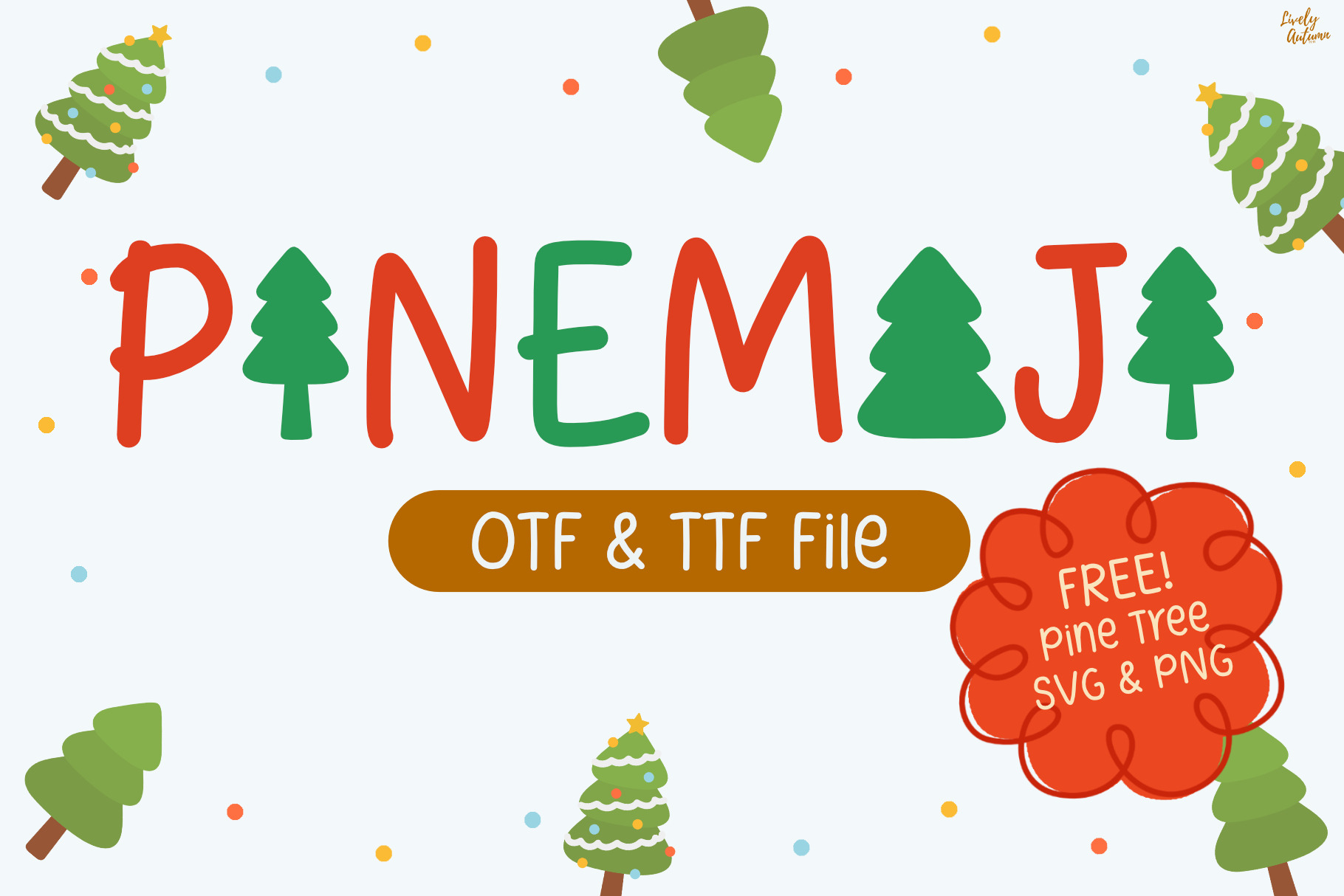
Pinemoji | playful handwritten font
Pinemoji is a cute handwritten font where the letters "i" and "o" are replaced with a pine tree emoji. The name "Pinemoji" comes from the words "pine" and "emoji". Perfect for your Christmas project, personal projects and various projects. From invitations to posters, social media graphics, journals, stickers and much more.
- Font includes: uppercase, lowercase, numbers, and punctuation